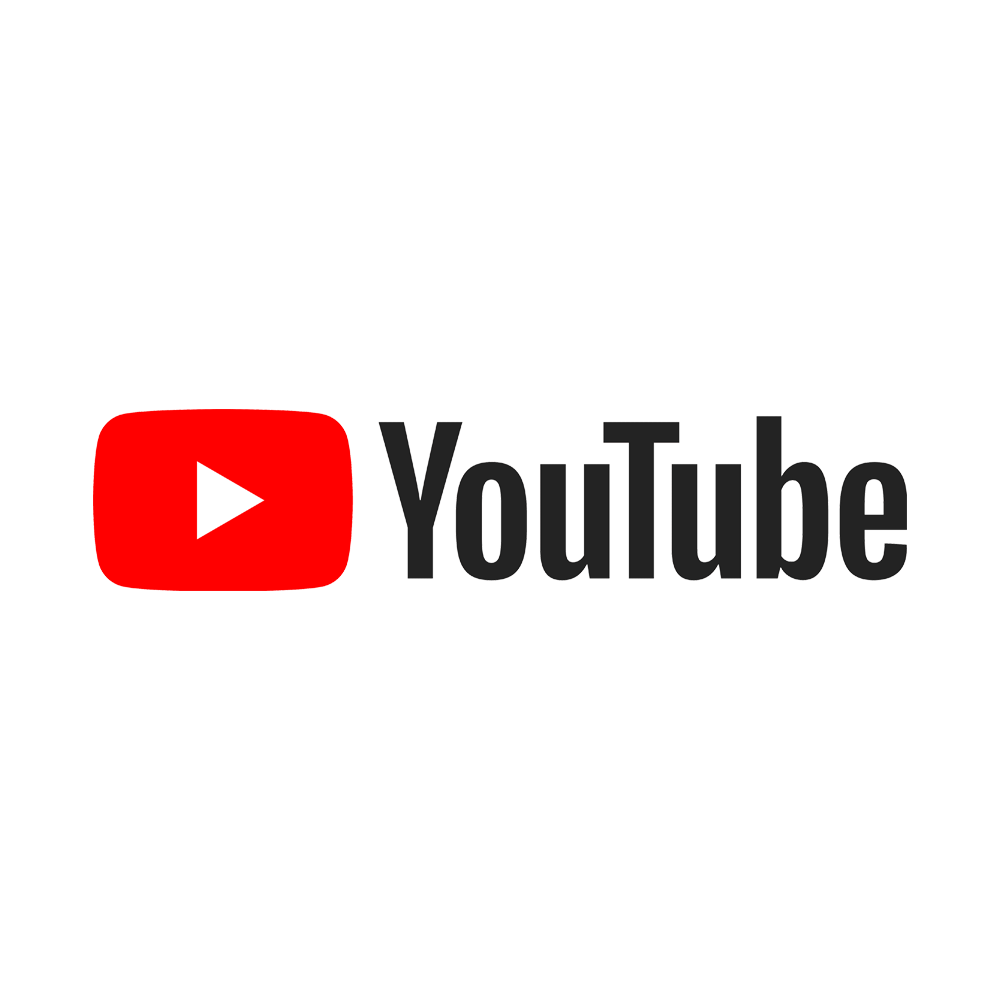
YouTube Logo Font
Fonts in UseYouTube is a video sharing website where users can upload, share, and view videos. It was created in 2005 and is now one of the most popular websites on the internet, with millions of users watching billions of hours of video every day.
The font used for the YouTube logo is most likely Trade Gothic Bold Condensed #20. Trade Gothic is a sans-serif typeface designed by Jackson Burke in 1948. It is a popular font for use in advertising and print design because of its versatility and legibility.